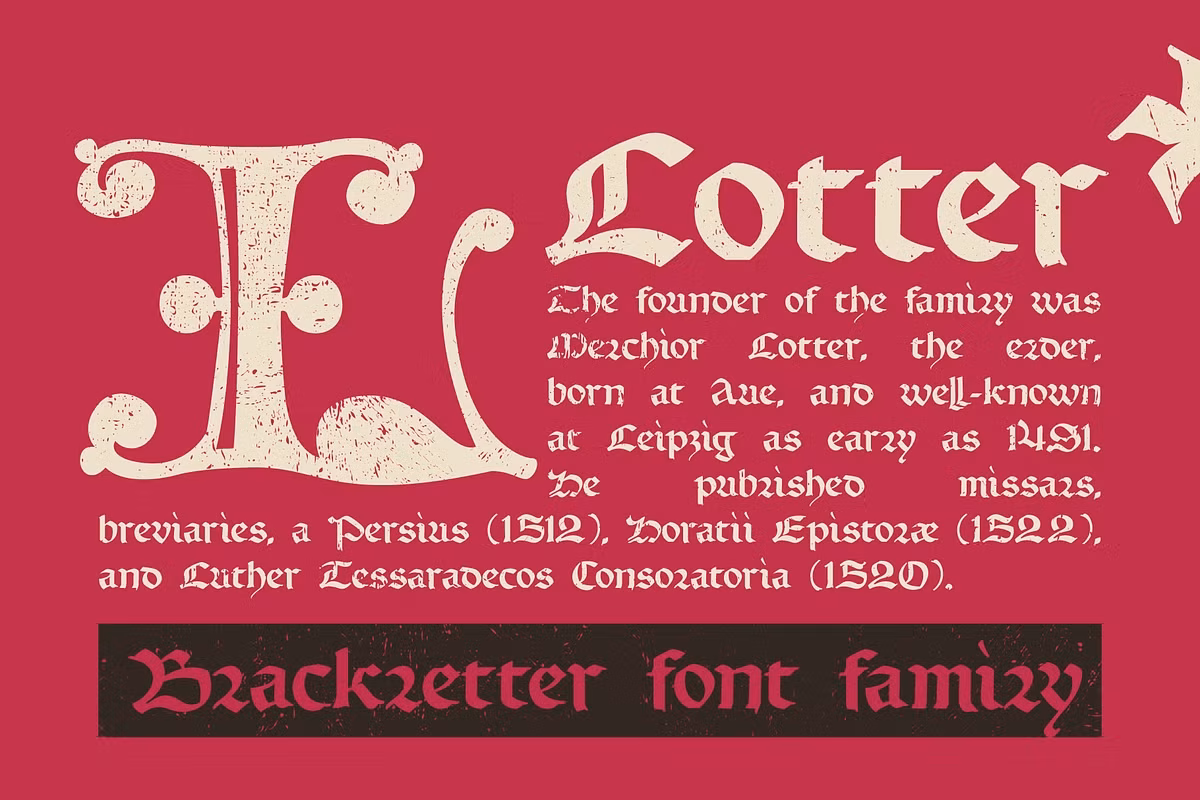
Lotter blackletter with Drop caps Free Download
Lotter – Blackletter with Drop Caps Free Download is a dramatic and decorative typeface that brings historic elegance and bold gothic flair to your typography. Please note, you are required to purchase this font for commercial use. It is available for free download for testing and personal projects only.
Combining traditional blackletter style with beautifully crafted drop caps, Lotter is perfect for book covers, posters, vintage packaging, tattoo designs, branding, and anything that calls for a regal or medieval aesthetic. It delivers strong visual impact with a touch of ornate sophistication.